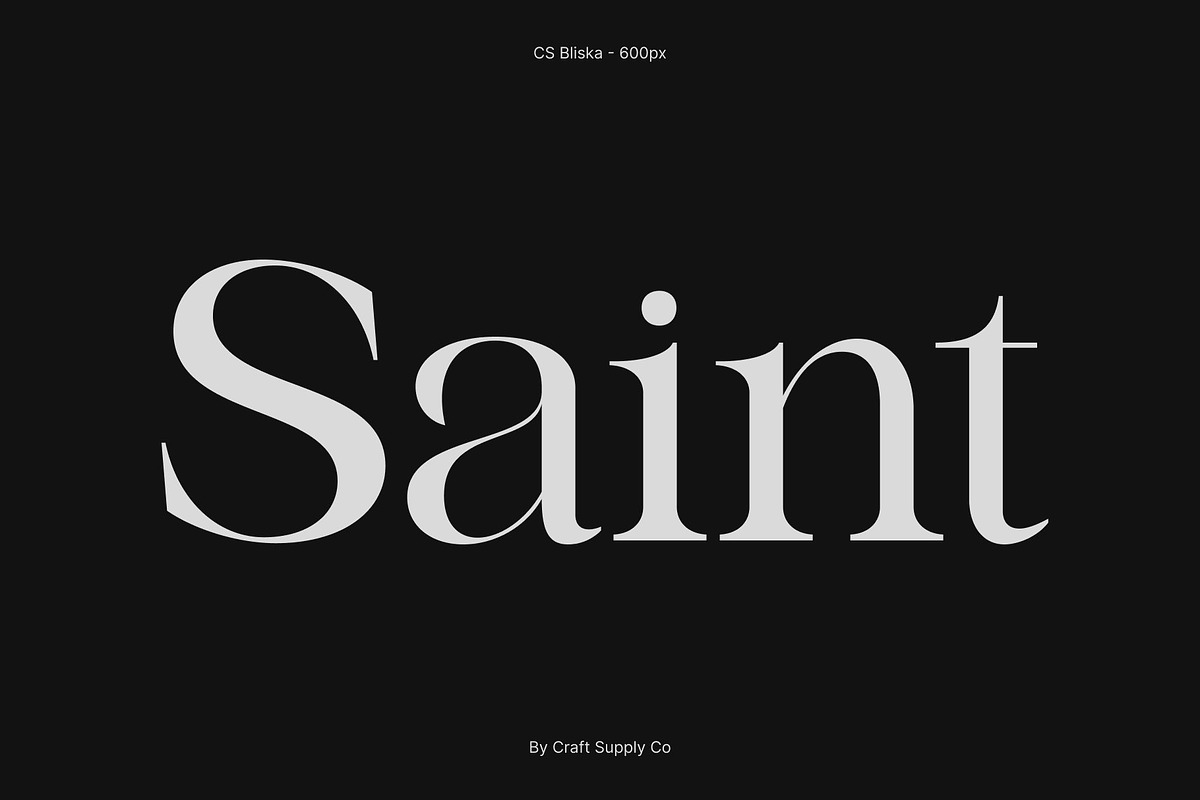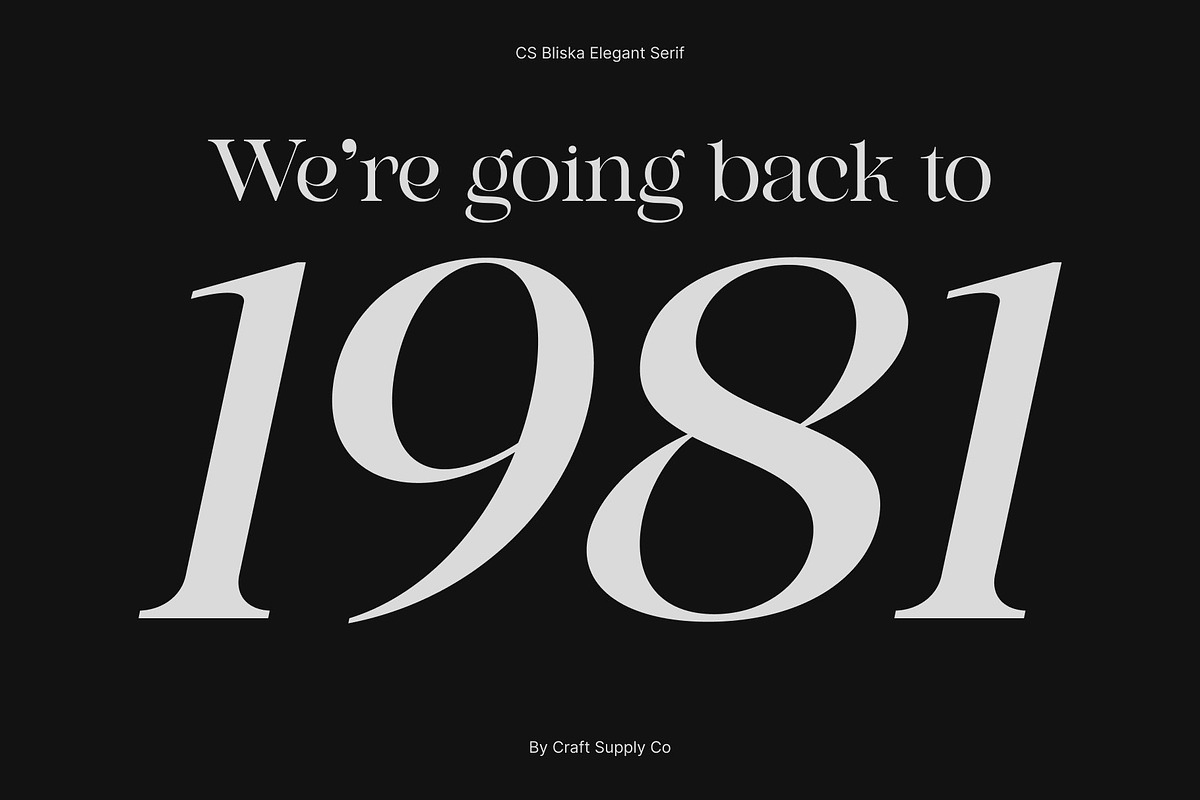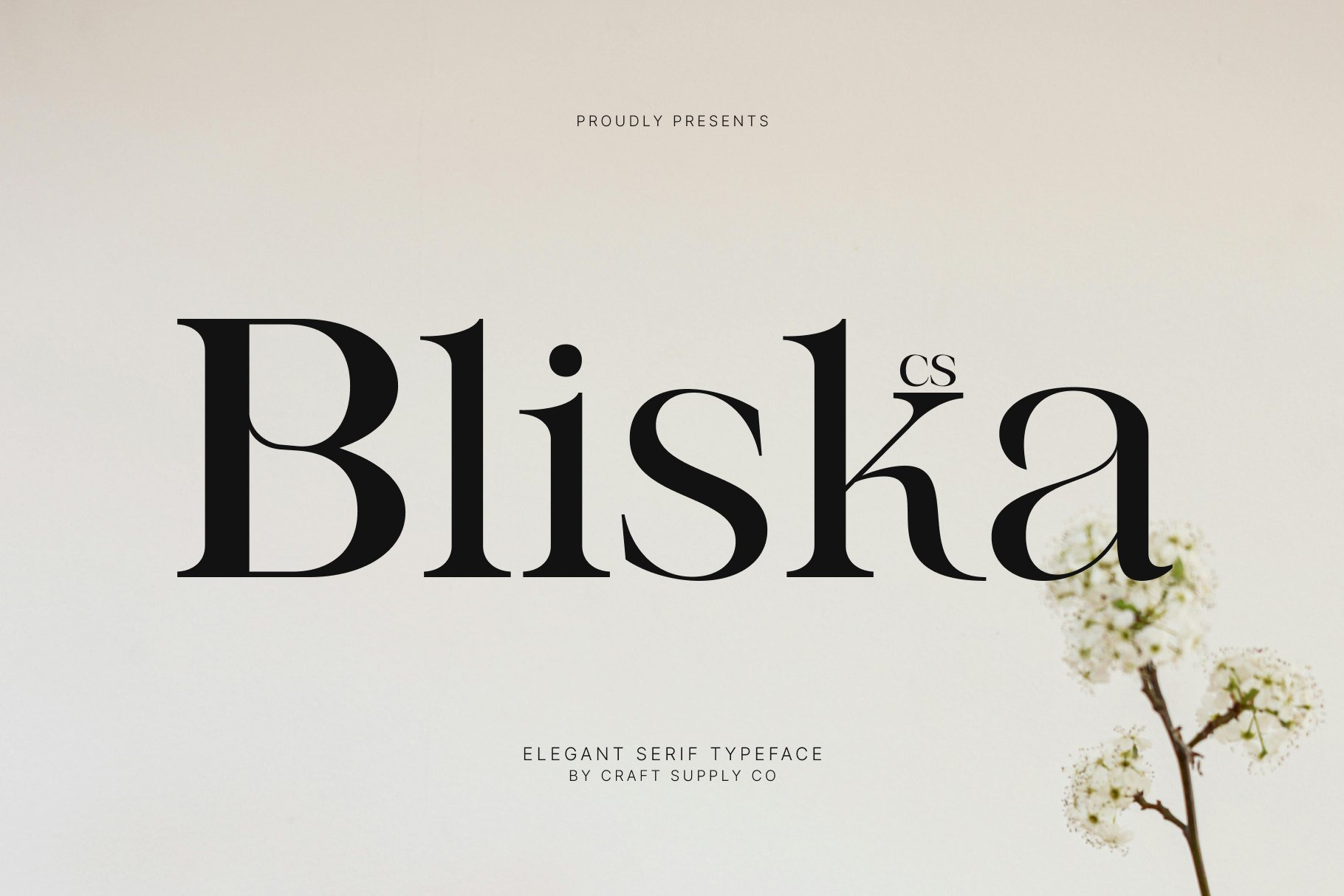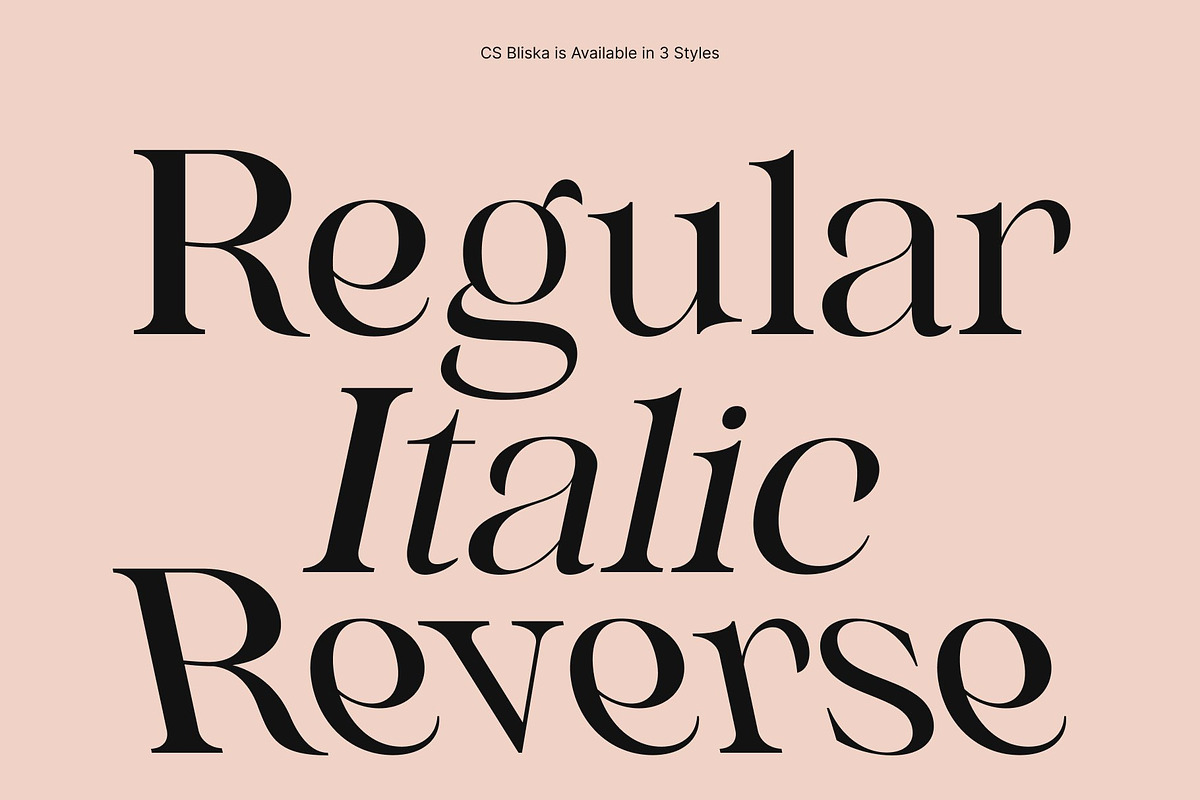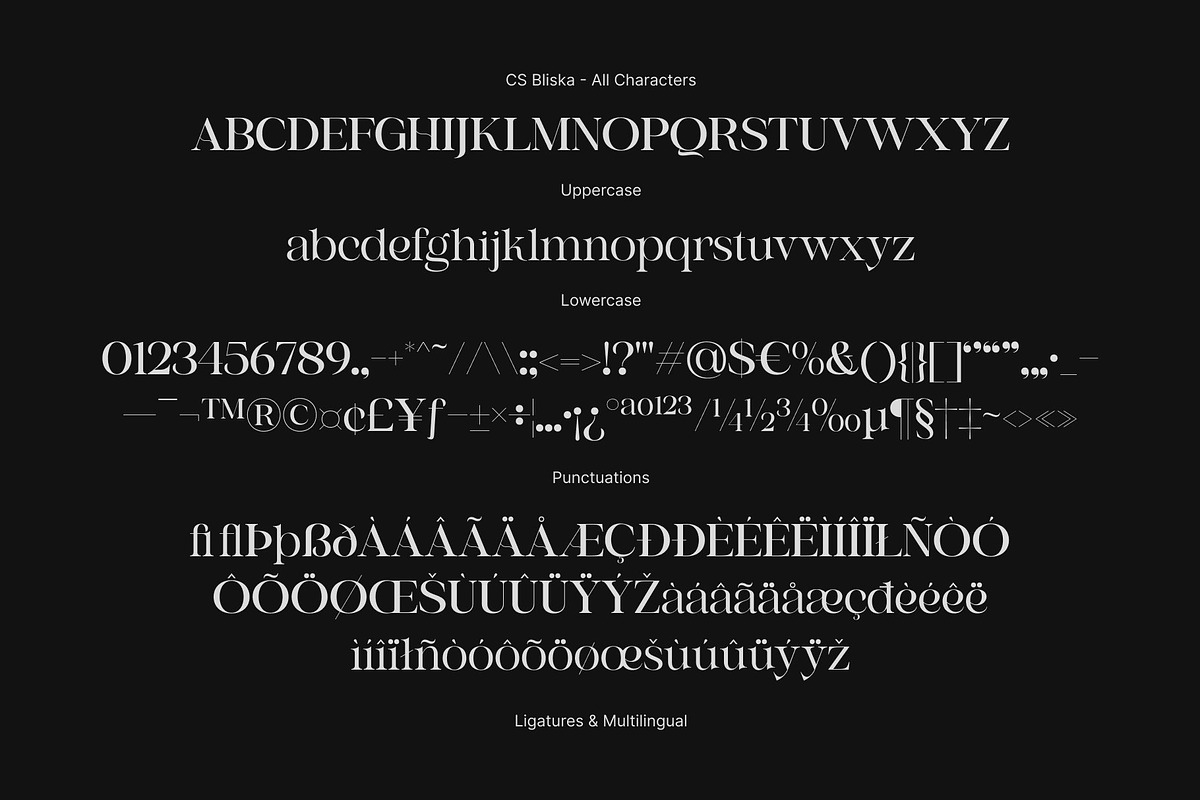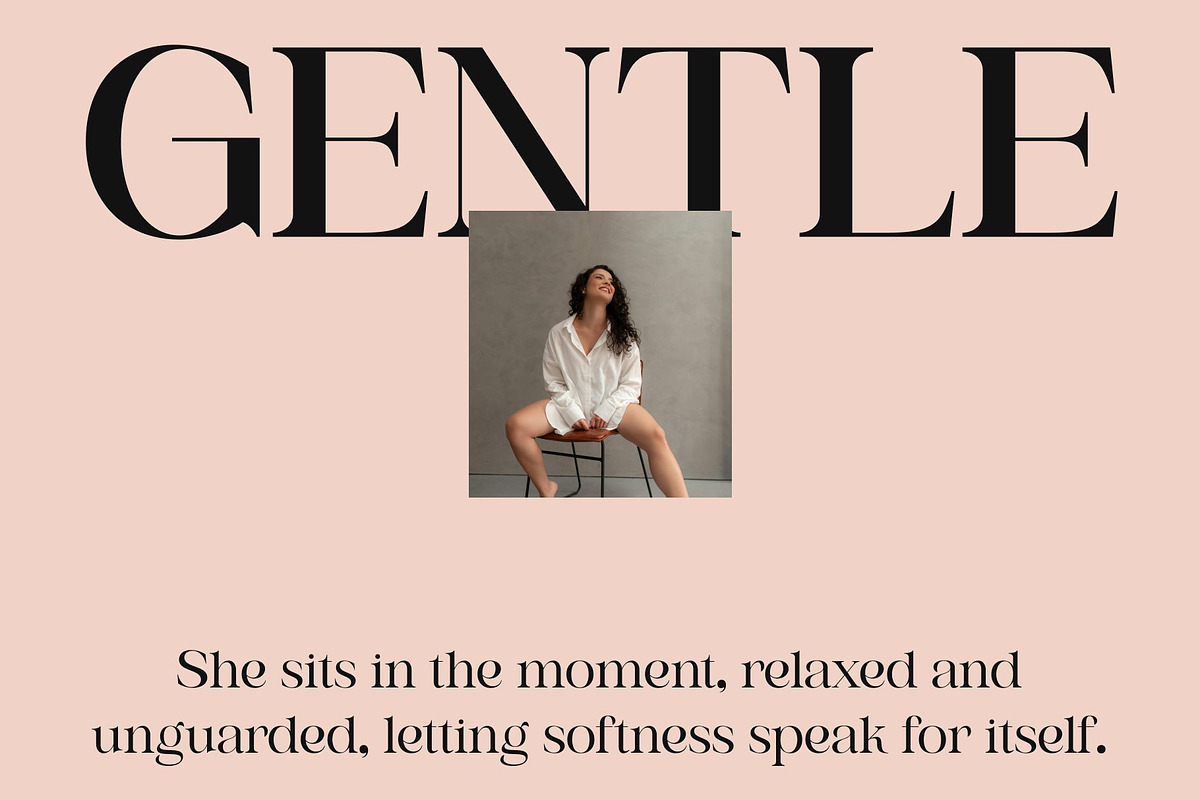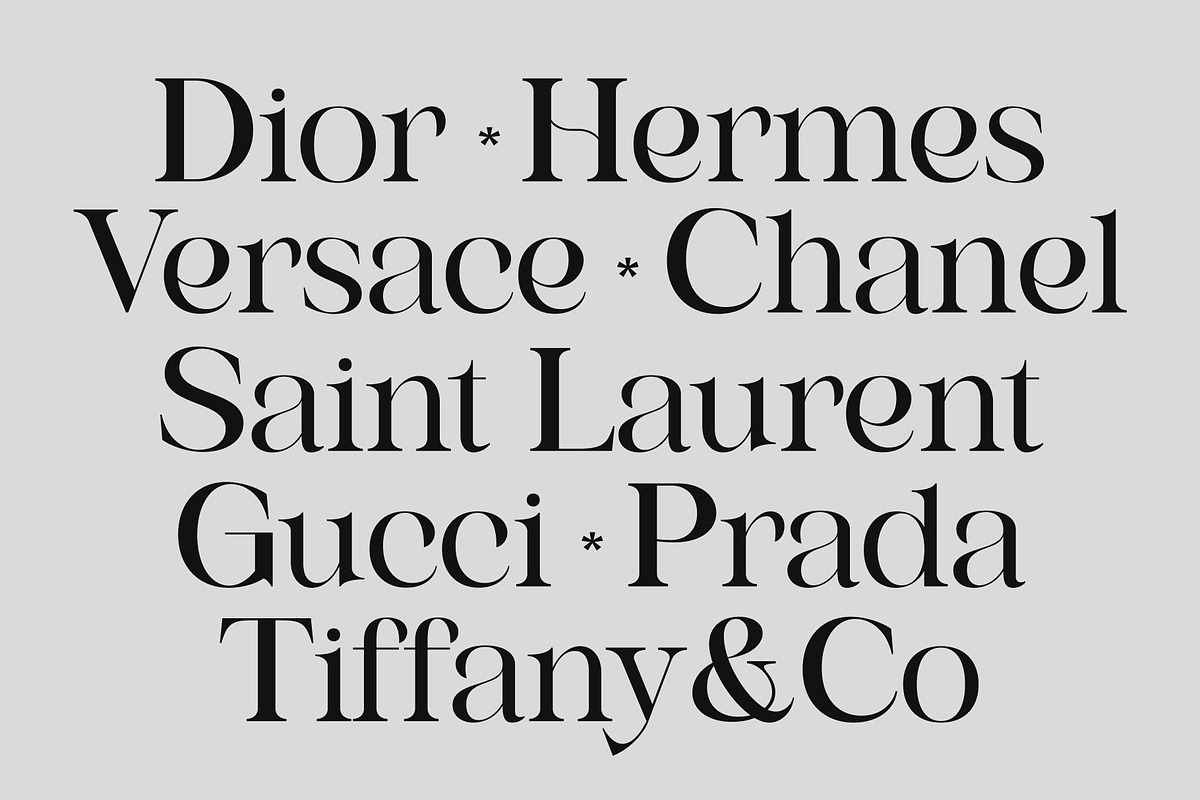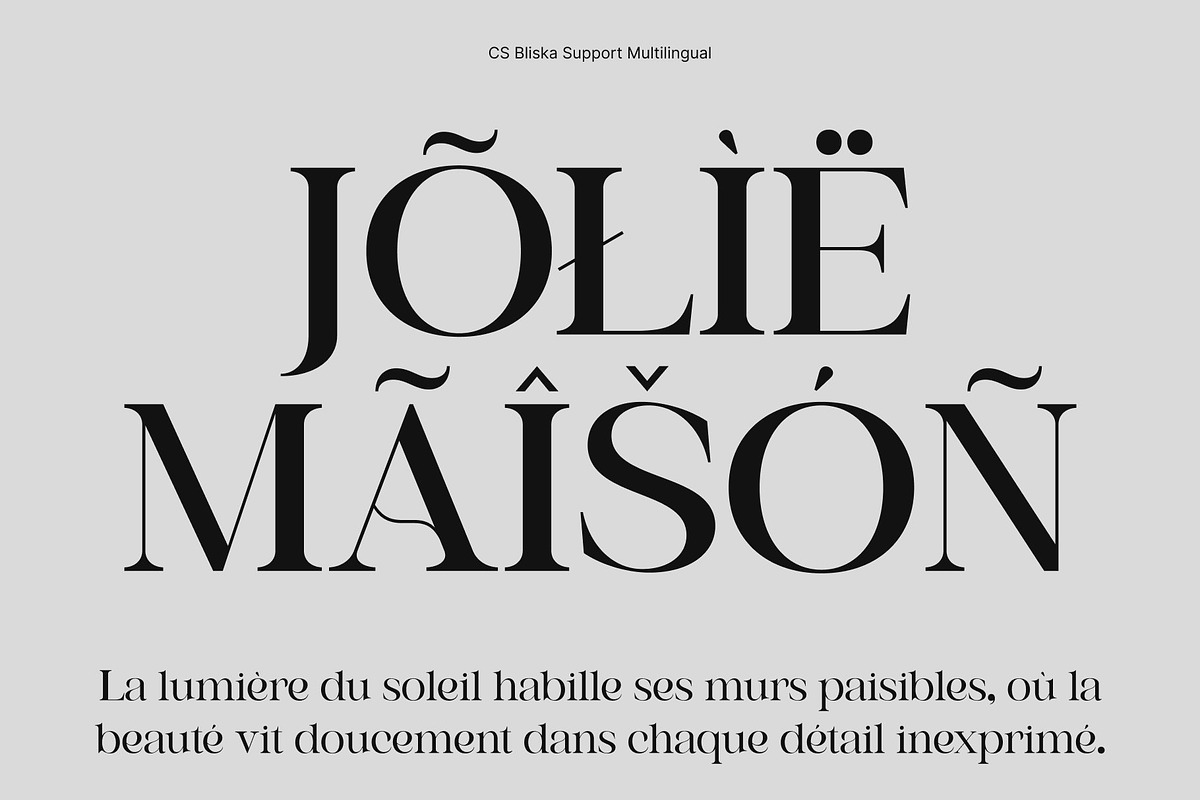
CS Bliska – Elegant Serif Font
CS Bliska – Elegant Serif Font with Feminine Grace
Refined Elegance with Timeless Beauty This is an elegant serif font designed to express refinement, calmness, and beauty. Its graceful letterforms and balanced proportions create a sophisticated appearance that feels timeless and composed. Every character is crafted to convey subtle luxury and poise, making the font visually soothing and aesthetically refined.
Classy and Feminine Character With its soft curves and delicate serif details, this font radiates a feminine and classy personality. The font feels gentle yet confident, combining elegance with clarity. Its calm visual rhythm makes it perfect for designs that aim to communicate beauty, sensitivity, and high-end appeal without appearing overstated.
Perfect for Fashion and Beauty Design This font is especially suited for fashion branding, beauty products, and lifestyle visuals. It enhances magazine layouts, editorial headlines, and logo designs with a sense of grace and sophistication. Its elegant structure elevates content while maintaining excellent readability and balance.
Versatile for Branding and Logos Whether used in luxury branding, magazines, or logo systems, this font delivers a polished and memorable typographic voice. It is ideal for designers seeking a serif font that feels elegant, feminine, and calm bringing timeless beauty and refined style to every creative project.